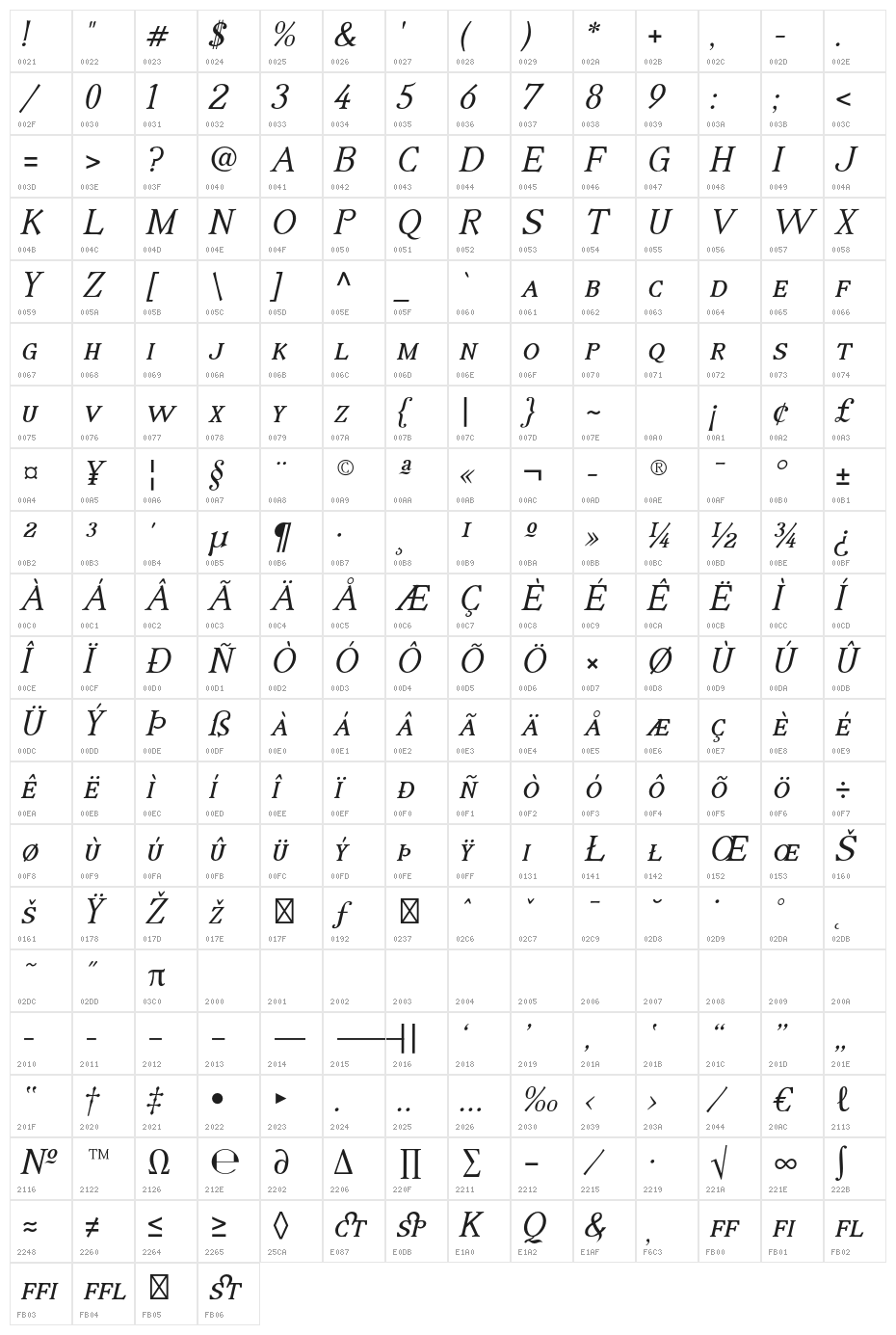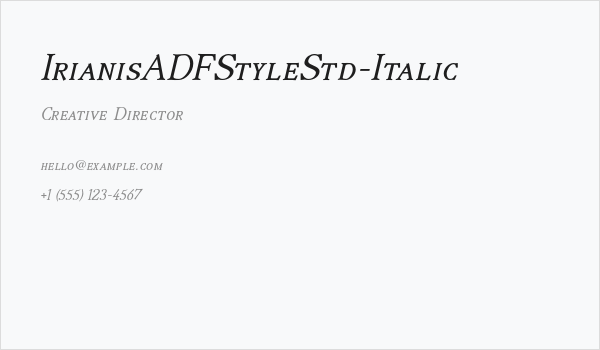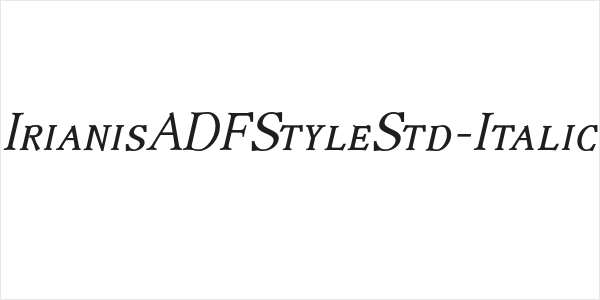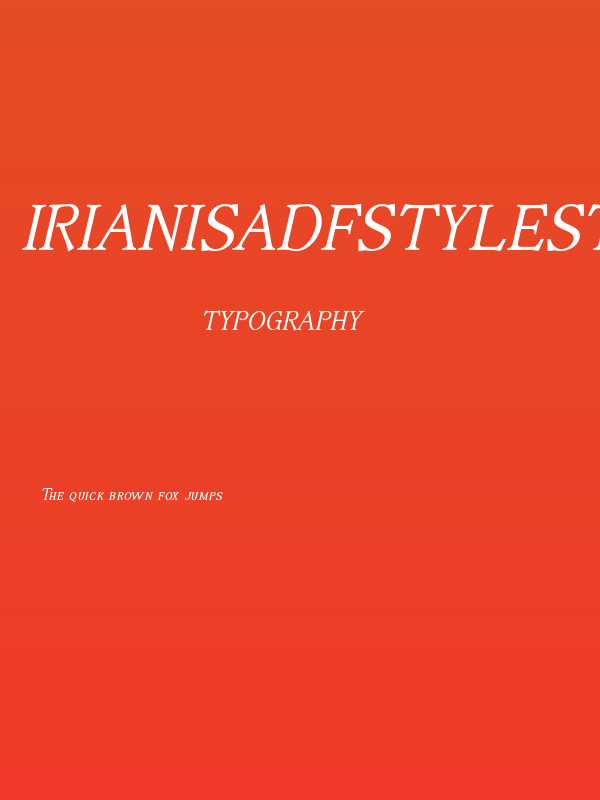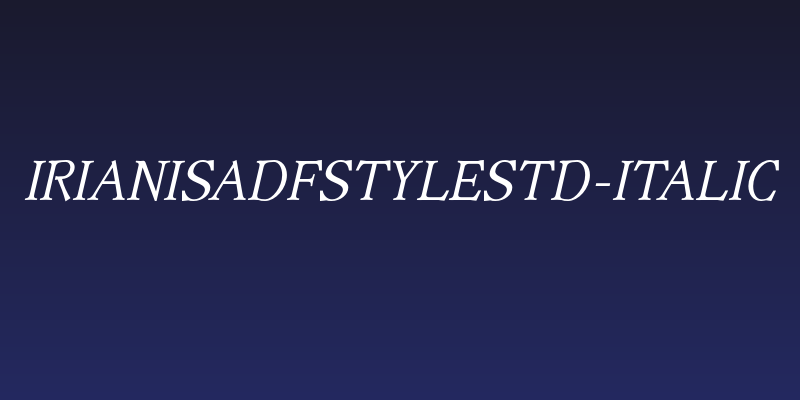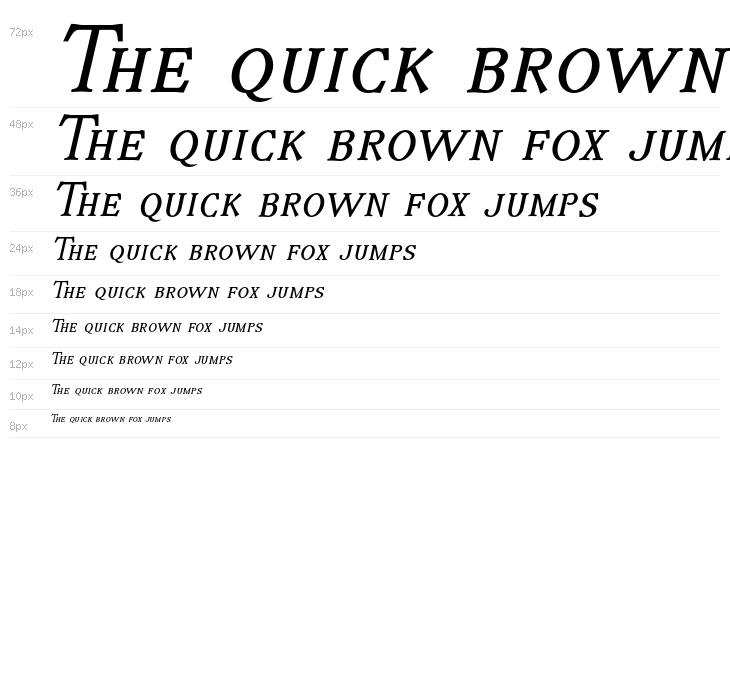
IrianisADFStyleStd-Italic Font
IrianisADFStyleStd-Italic Description
This font features a classic italic style with elegant, flowing lines that convey a sense of sophistication and grace. The characters are slightly slanted to the right, enhancing the dynamic and fluid appearance. The serifs are pronounced yet refined, adding a touch of traditional charm. The numerals and special characters maintain the same elegant style, ensuring consistency across all text elements. The overall design is balanced, making it suitable for a variety of formal and creative applications.
| Proposed Projects | Ideal for wedding invitations, formal event programs, luxury brand logos, and editorial design. |